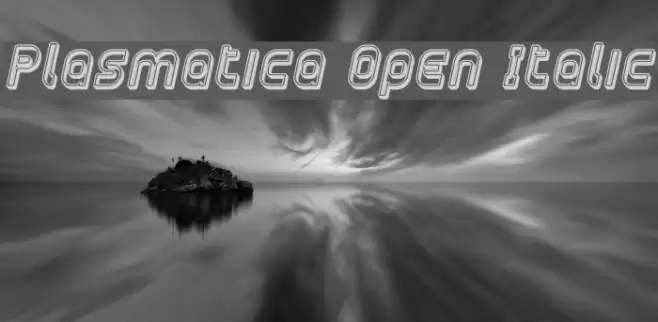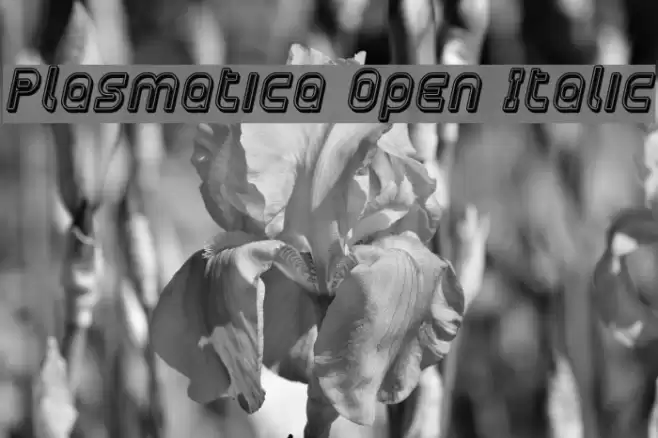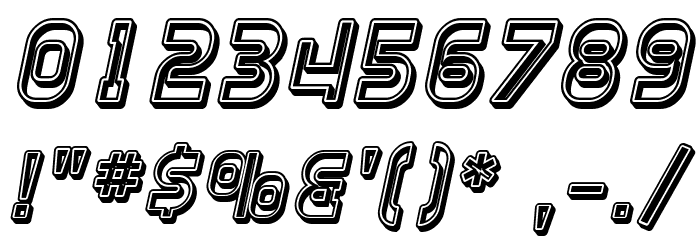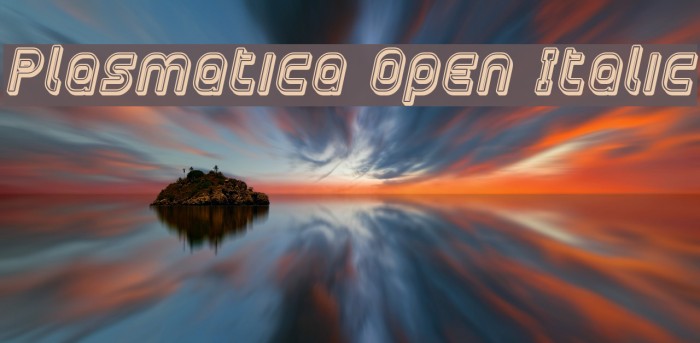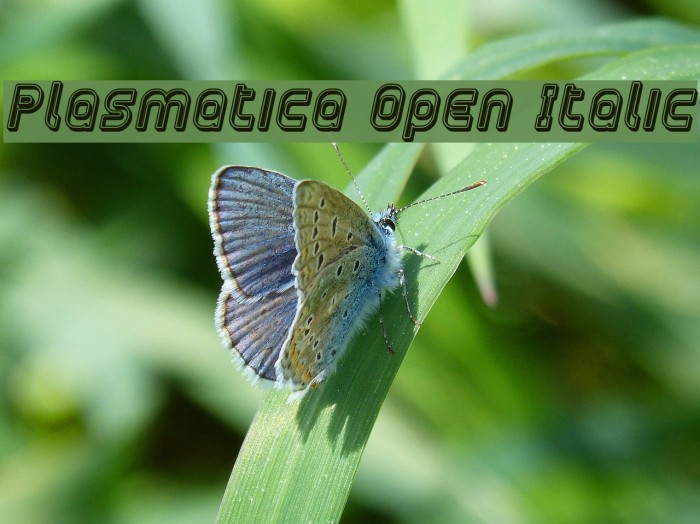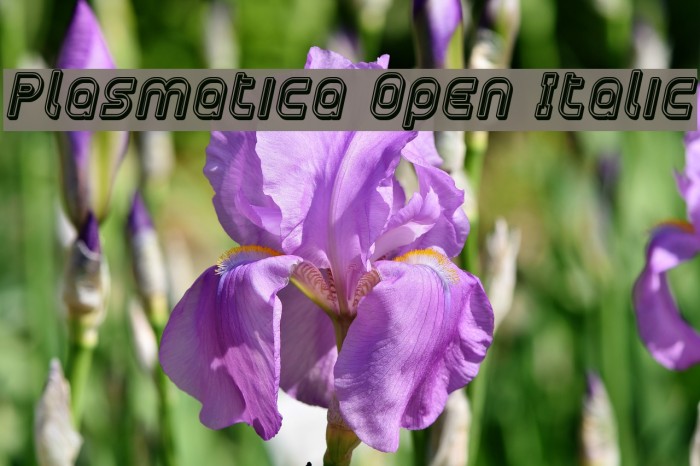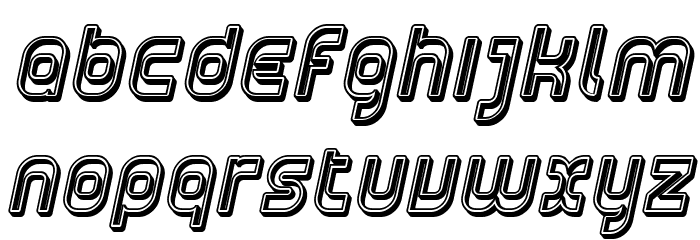
Plasmatica Open Italic Font
Plasmatica Open Italic Description
This font features a bold, futuristic design with a distinct three-dimensional effect. The letters are outlined with a double-layered stroke, creating a sense of depth and movement. The italic slant adds a dynamic quality, making it suitable for modern and tech-oriented projects. The characters are evenly spaced, ensuring readability while maintaining a unique style. The font includes a full set of uppercase and lowercase letters, numbers, and a variety of special characters, making it versatile for various design needs.
A bold, futuristic italic font with a 3D outlined style from Modern fonts.
- Proposed Projects: Ideal for tech branding, video game titles, futuristic posters, and digital artwork.